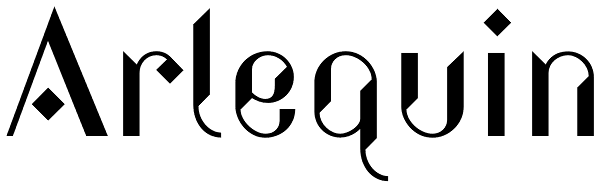
Arlequin
Arlequin is a high-contrast sans serif decorative font. The most distinguished characteristic of this typeface is its lowercase letters. Their shapes, a high-contrast clash of bold angular fragments with arched thin counterparts, make for a dramatic...